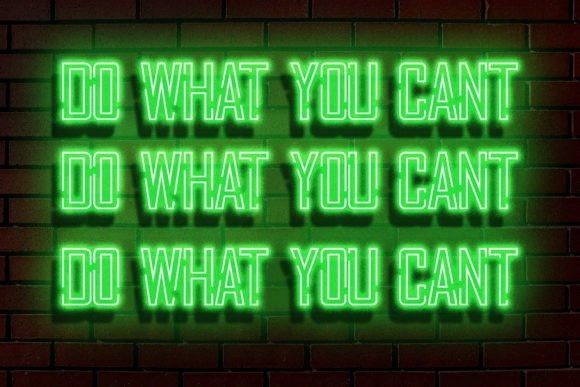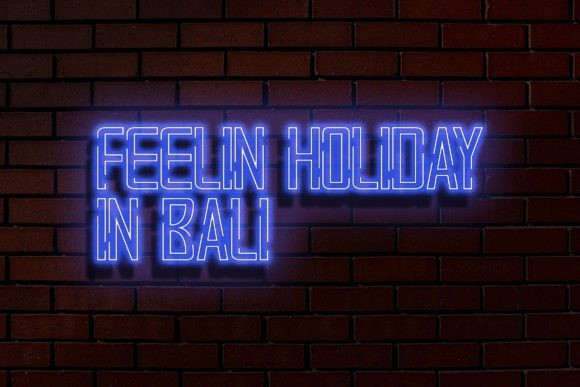
Stellarum Font
Stellarum Font A concise typeface that is fun and relaxed. This type of font is very suitable to be applied especially for the needs of letters and logos, and various other formal forms such as invitations, labels, magazines, books, greeting/wedding cards, packaging, fashion, makeup, stationery, novels, labels or any type of advertising purpose.